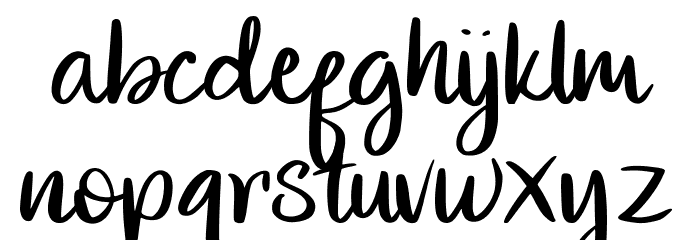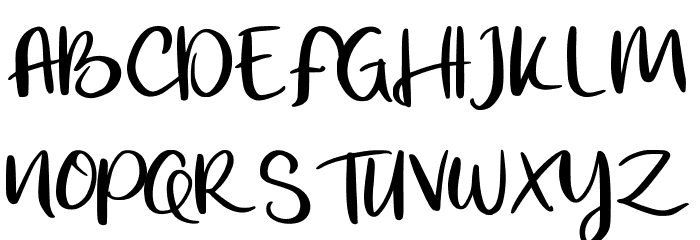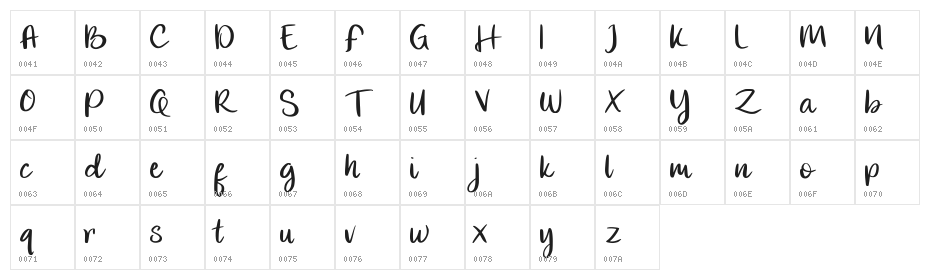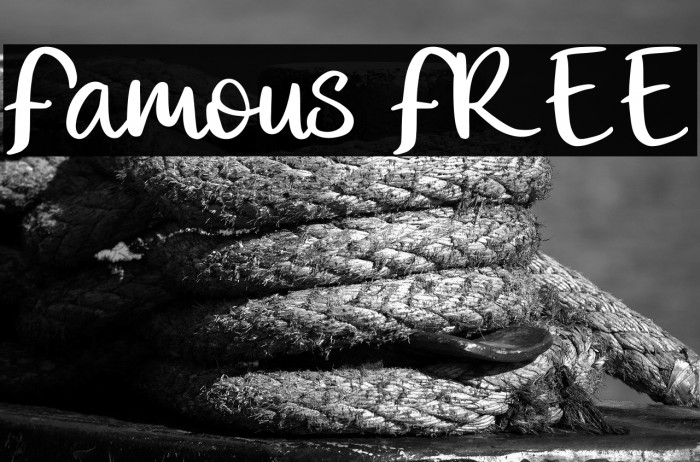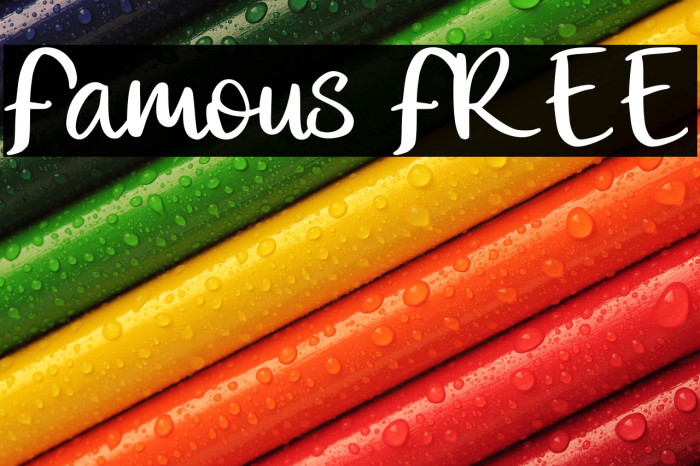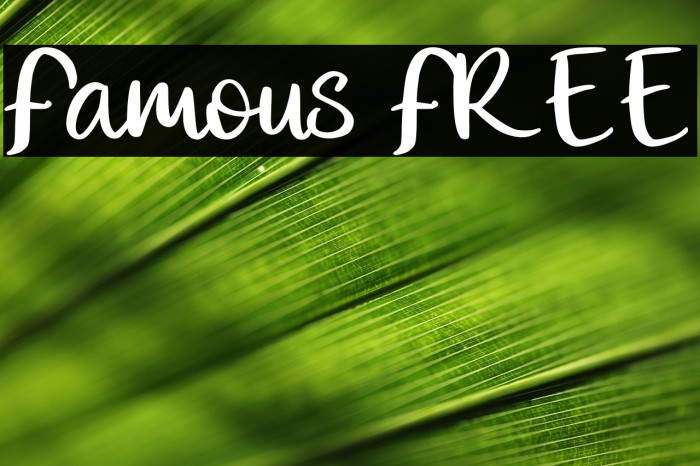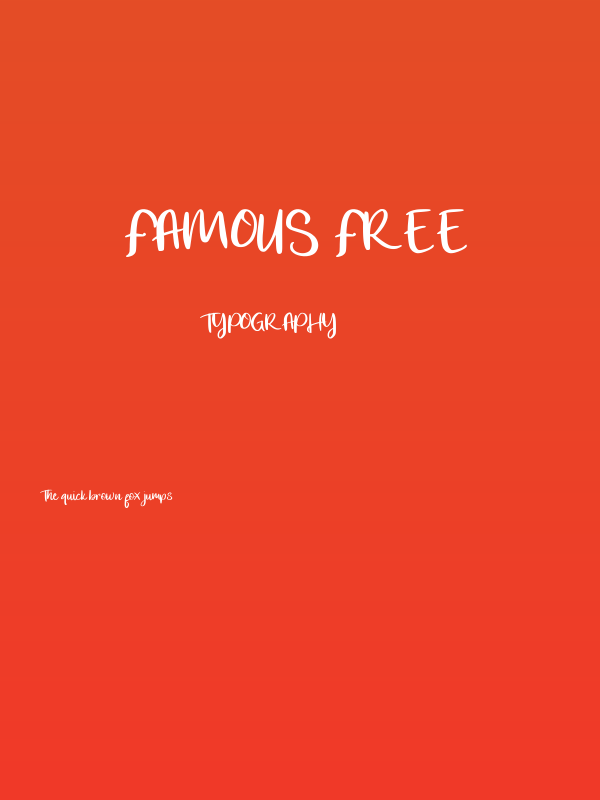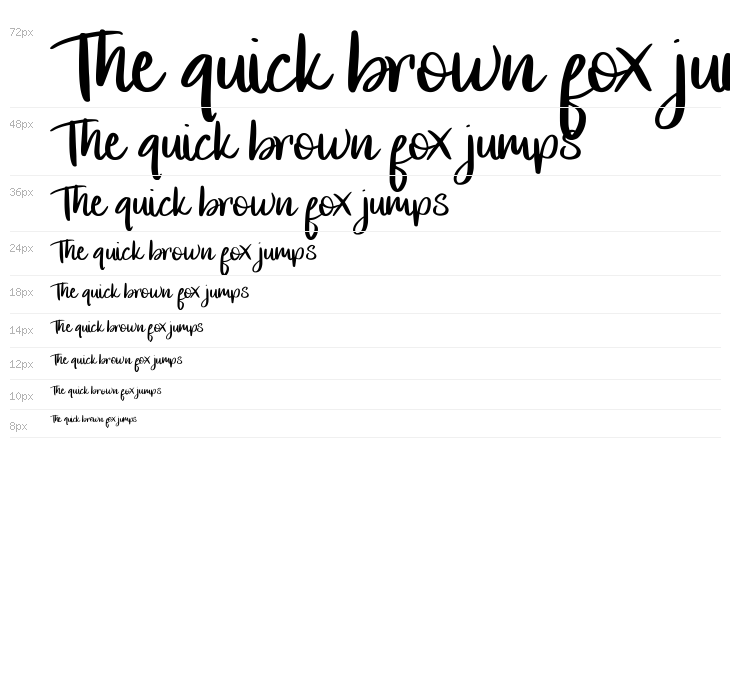
Famous FREE Font
This font features a lively and expressive handwritten style, characterized by its fluid and dynamic strokes. The letters are bold and slightly slanted, giving a sense of movement and energy. The uppercase and lowercase letters maintain a consistent style, with rounded edges and varying stroke widths that add a playful touch. The font's casual and friendly appearance makes it suitable for projects that require a personal and approachable feel. It captures the essence of modern calligraphy with its artistic flair and informal elegance.
A lively, handwritten font with bold, fluid strokes and a modern calligraphic style.
- Proposed Projects: Ideal for greeting cards, invitations, branding, social media graphics, and creative projects that require a personal touch.
- Use Case: Logos, Headlines, Invitations